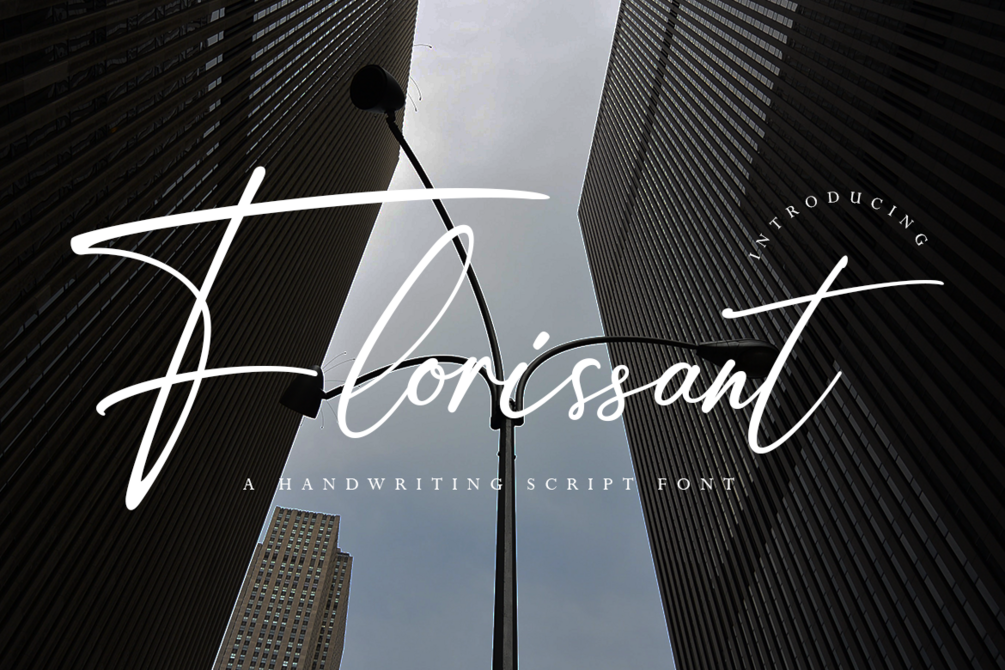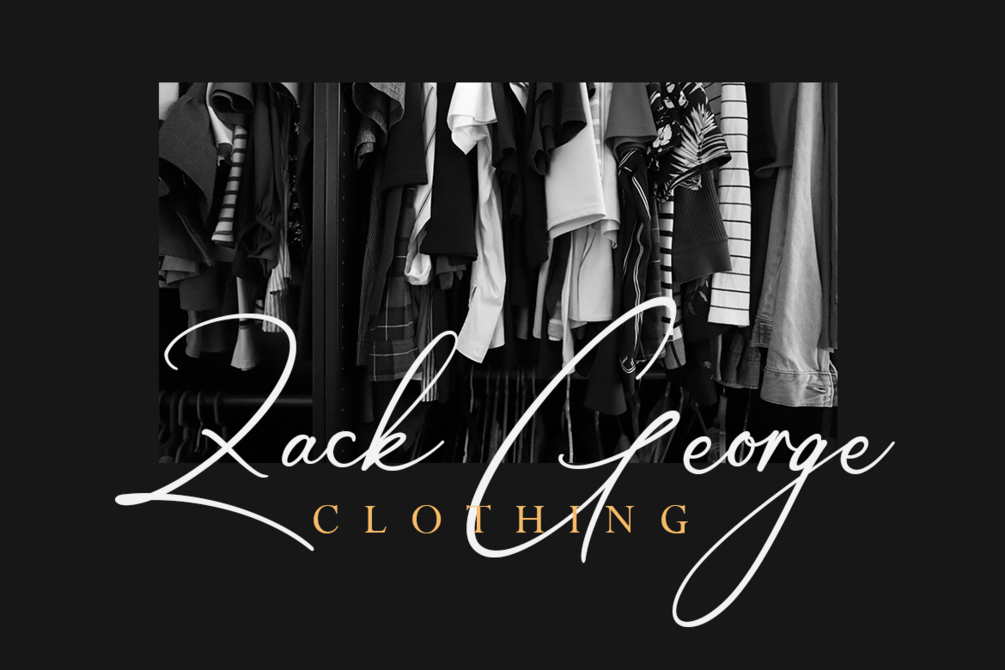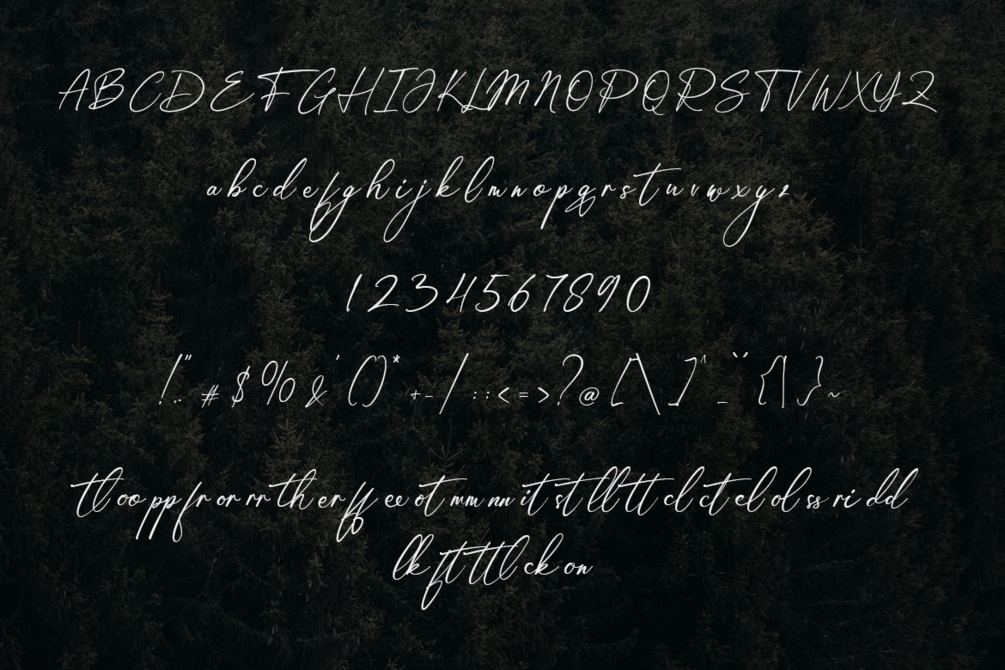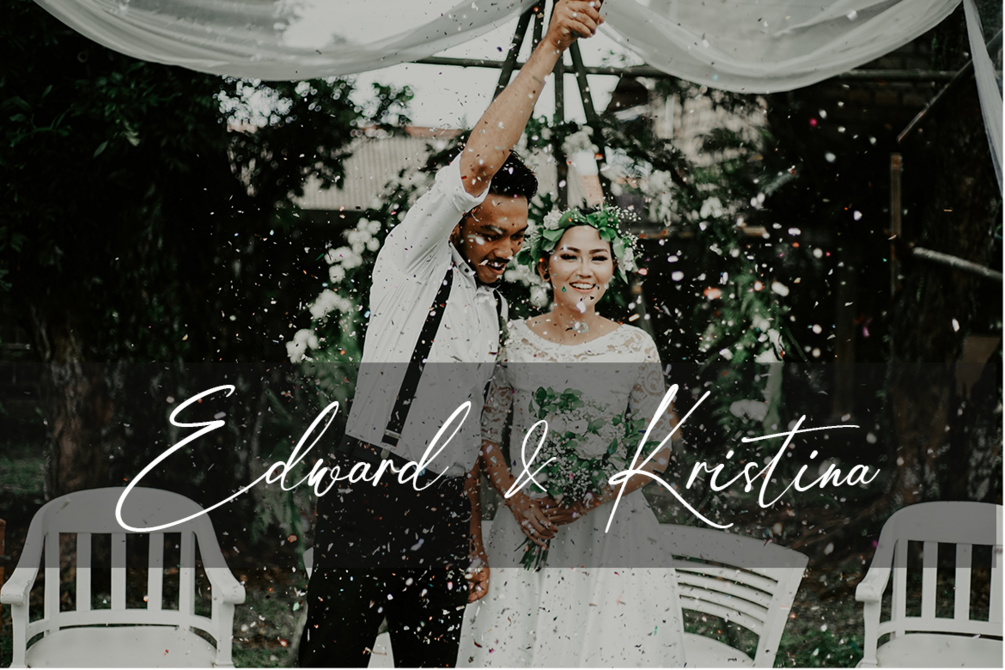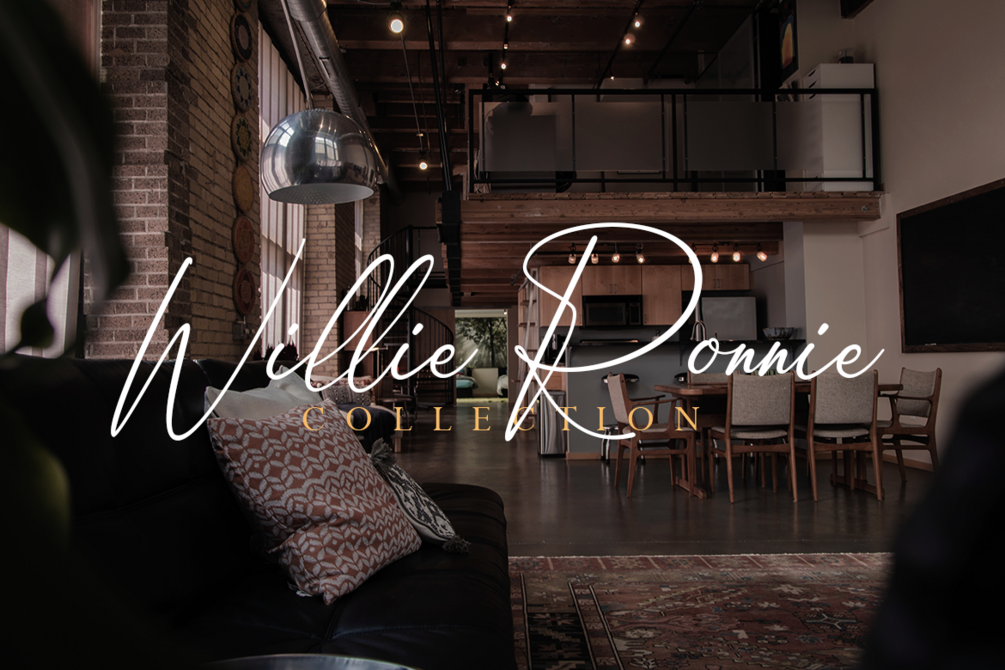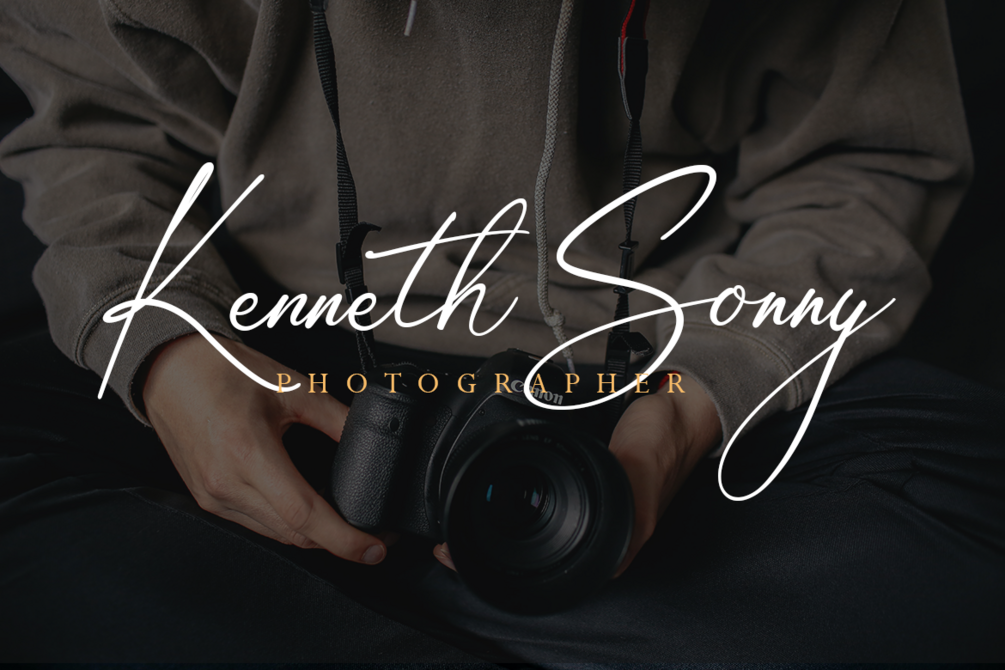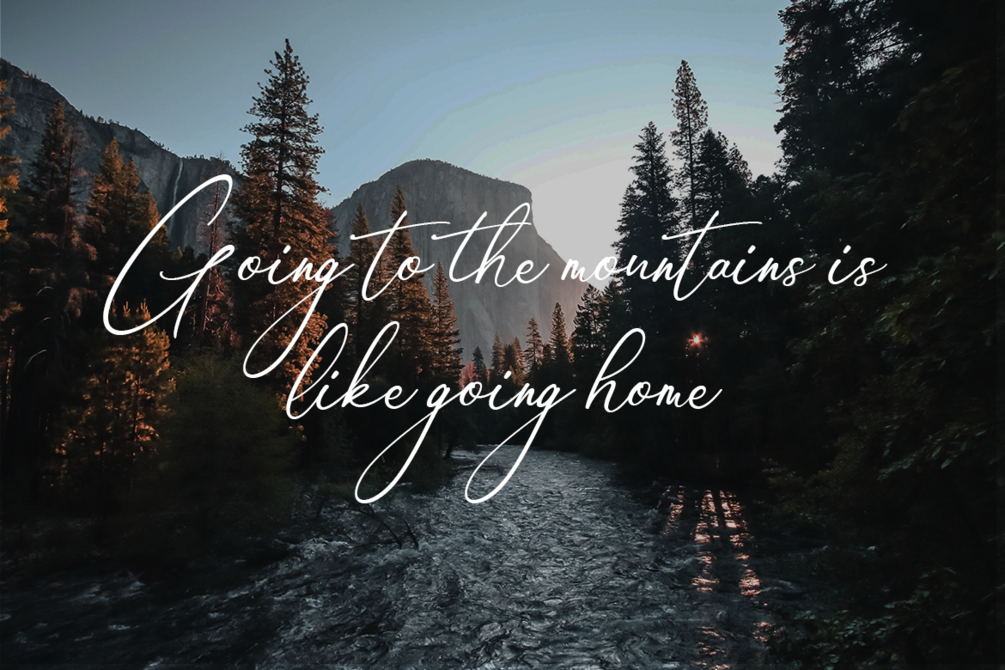
Florissant - Handwriting Font
Florissant is a modern and awesome handwriting font with extraordinary charm. This font is perfect for logos, invitations, stationery, wedding designs, social media posts, advertisements, product packaging, product designs, label, photography, watermark, special events, or anything else.
Features :
• uppercase & lowercase
• numbers and punctuation
• multilingual & ligatures